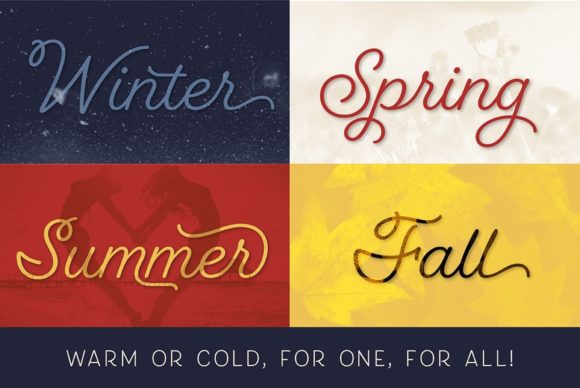
Introducing the Fairwater Collection Font, a captivating and versatile display font family created by the talented Laura Worthington. Inspired by the beauty of cursive handwriting styles from the early to mid-1900s, the forgiving letterforms of tattoo lettering, and the iconic themes of naval tattoos, Fairwater brings a unique and nostalgic aesthetic to your designs.
The Fairwater family includes three highly legible sans and script faces, each with their own personality - friendly, monoline, and casual. Available in light, regular, and bold weights, these fonts offer endless possibilities to bring your words to life. Laura Worthington's attention to detail is evident in the plethora of swashes and alternates available in the script version, adding a touch of elegance and charm to your designs.
But that's not all - the Fairwater Collection goes beyond the ordinary. It also includes four showier serif faces that are perfect for display sizes. From the vaguely botanical "Sailor" weight to the elegantly striped "Deco" weight, these serif fonts add a touch of sophistication to any project.
And as if that wasn't enough, the Fairwater Collection also features a powerful decorative font entitled DIY Lines. With over 250 ornamental characters, including ships, anchors, oars, knots, rope, botanicals, diamonds, arrows, and more, DIY Lines expands the possibilities even further. These ornamental characters perfectly complement the type, allowing you to create designs that evoke 20th-century craftsmanship, maritime themes, and colorful, salty personalities.
Whether you're a designer looking to add a touch of nostalgia and elegance to your projects or an entrepreneur aiming to create captivating marketing materials, the Fairwater Collection Font is a must-have. With its extensive glyph library, countless swashes and alternates, and the powerful DIY Lines font, this collection offers you the tools to unleash your creativity and make a lasting impression.